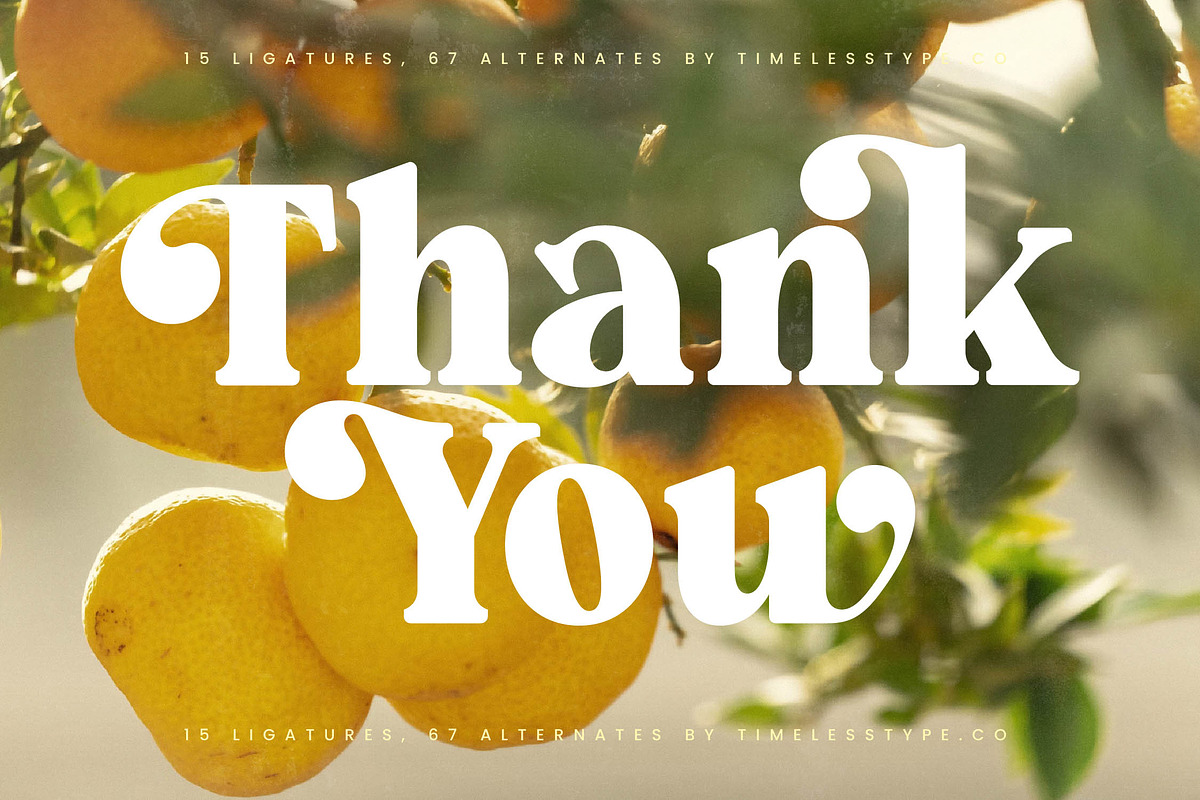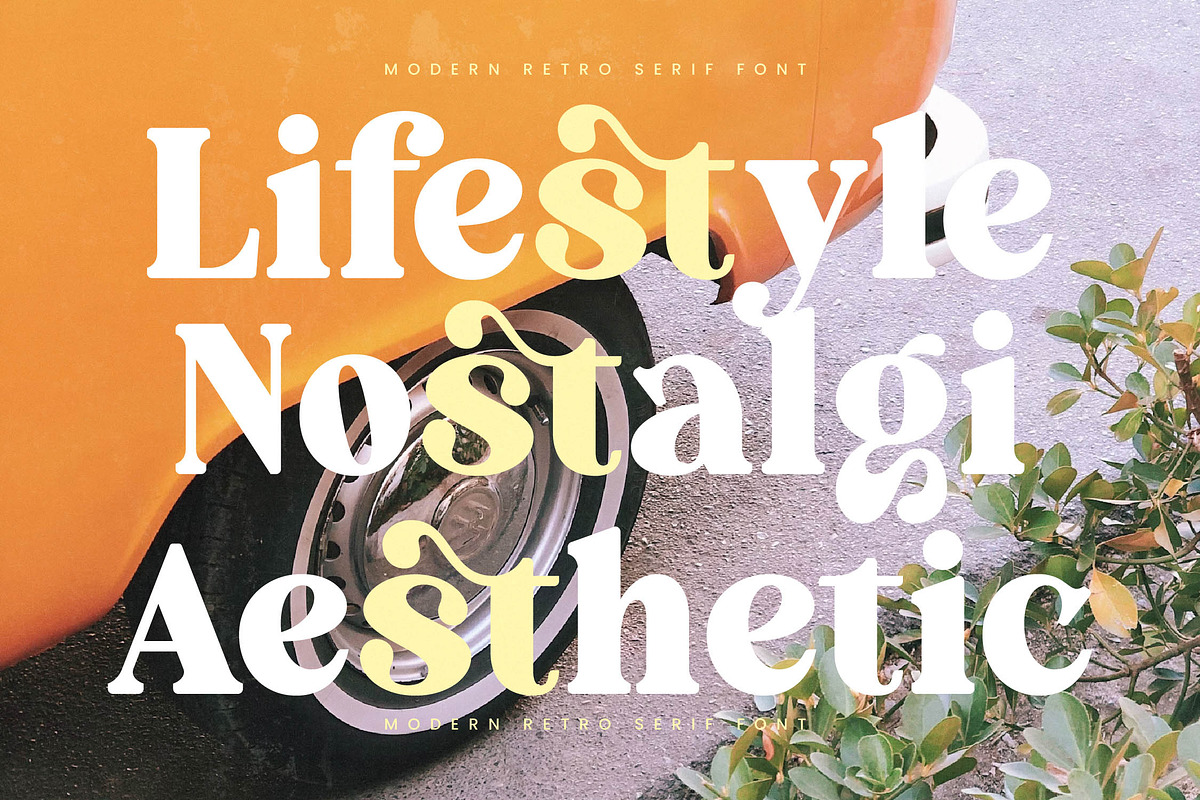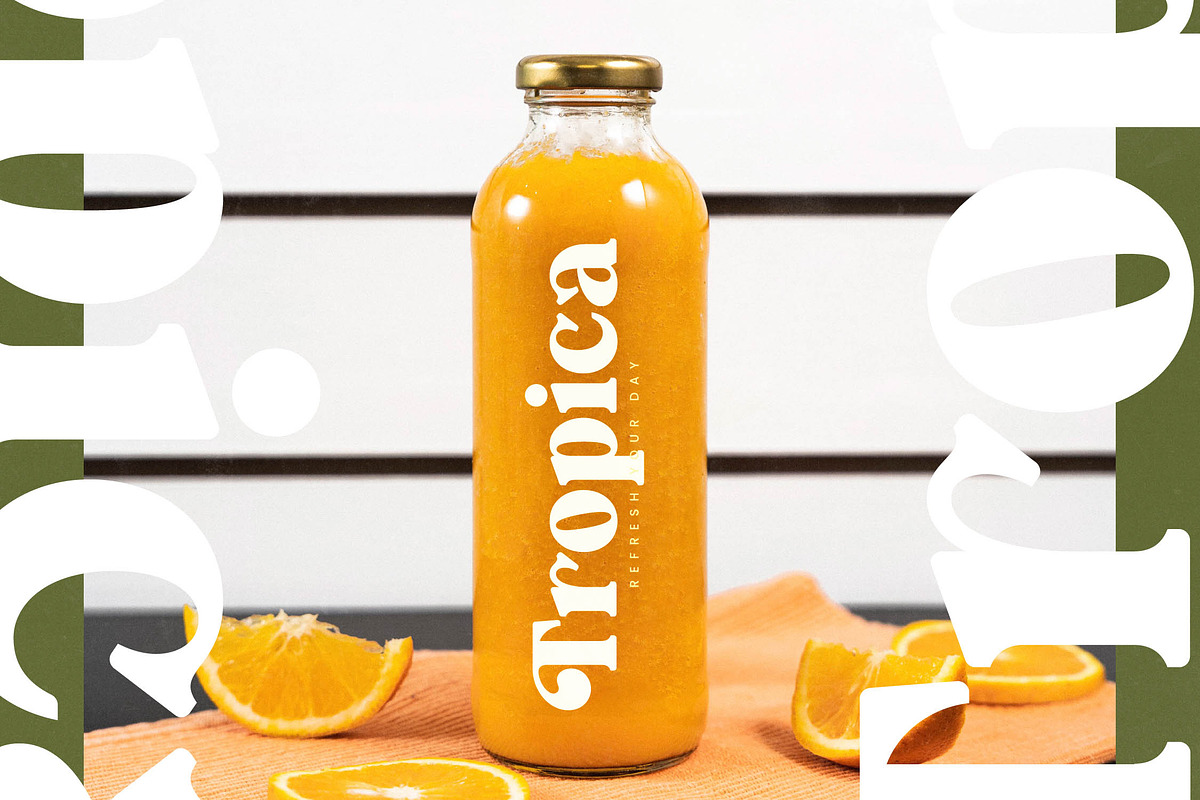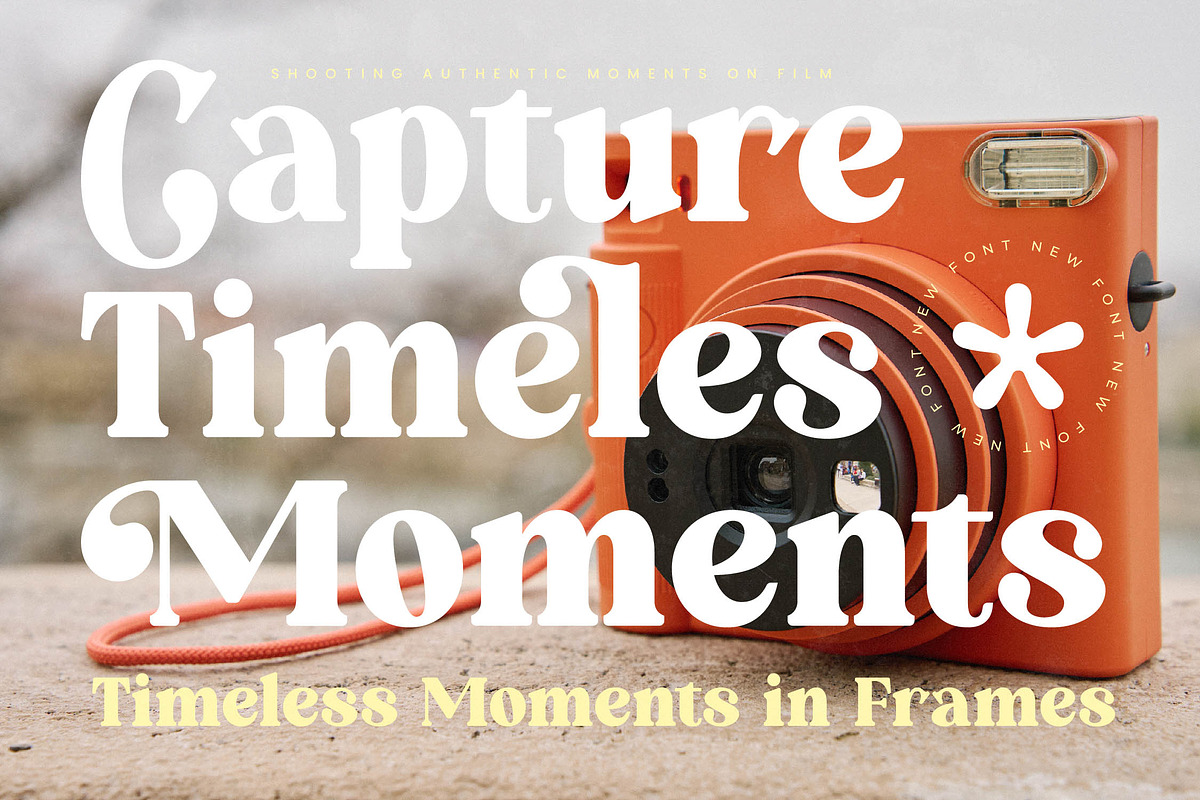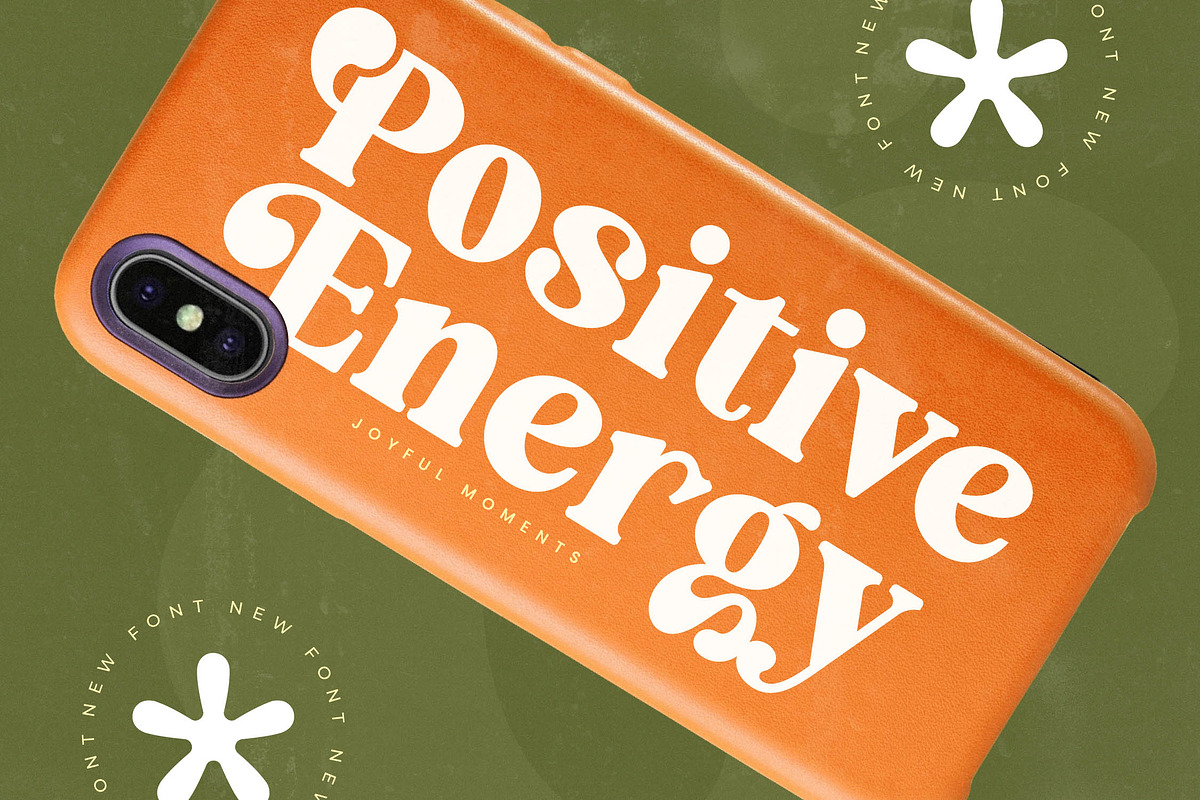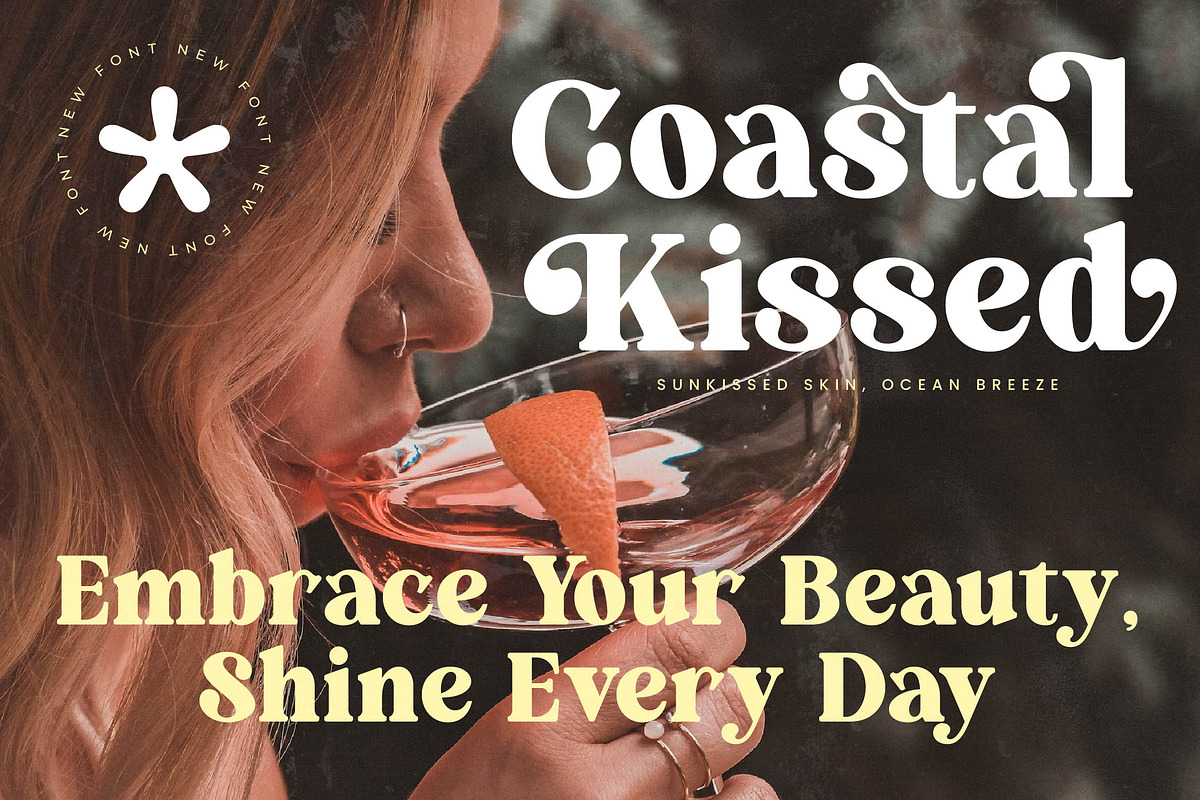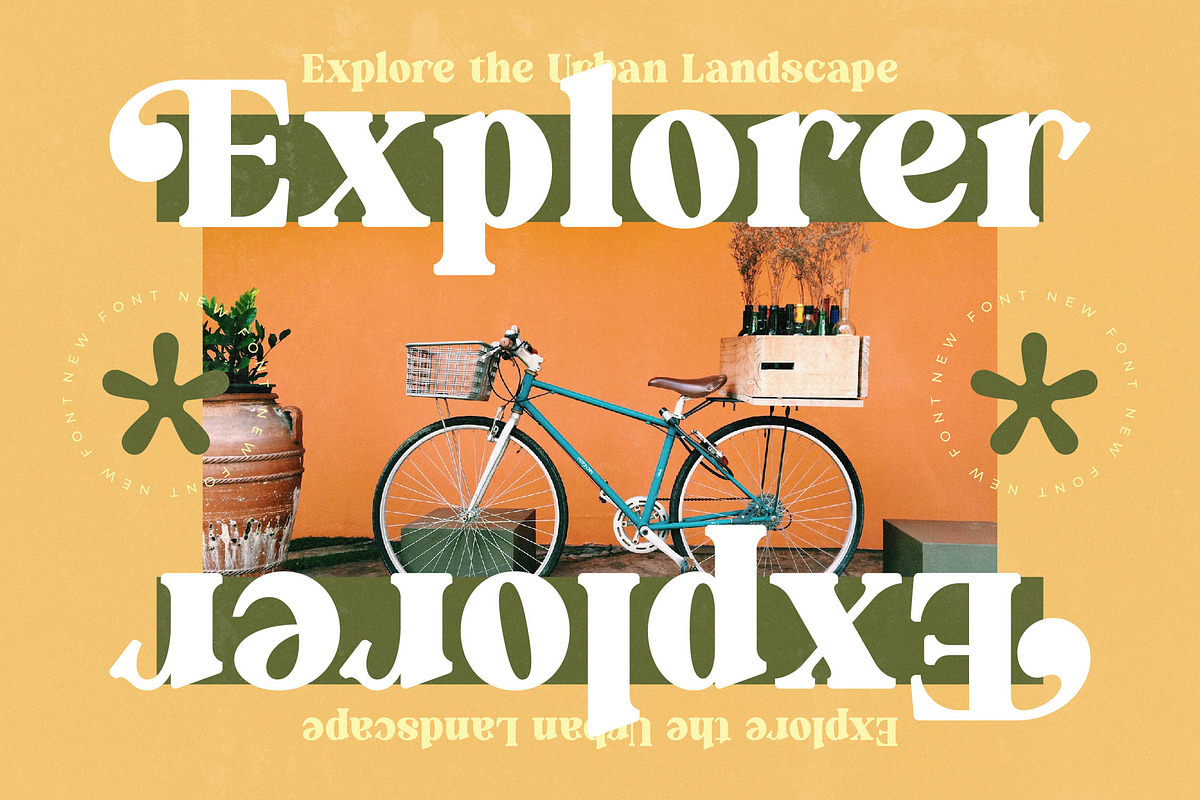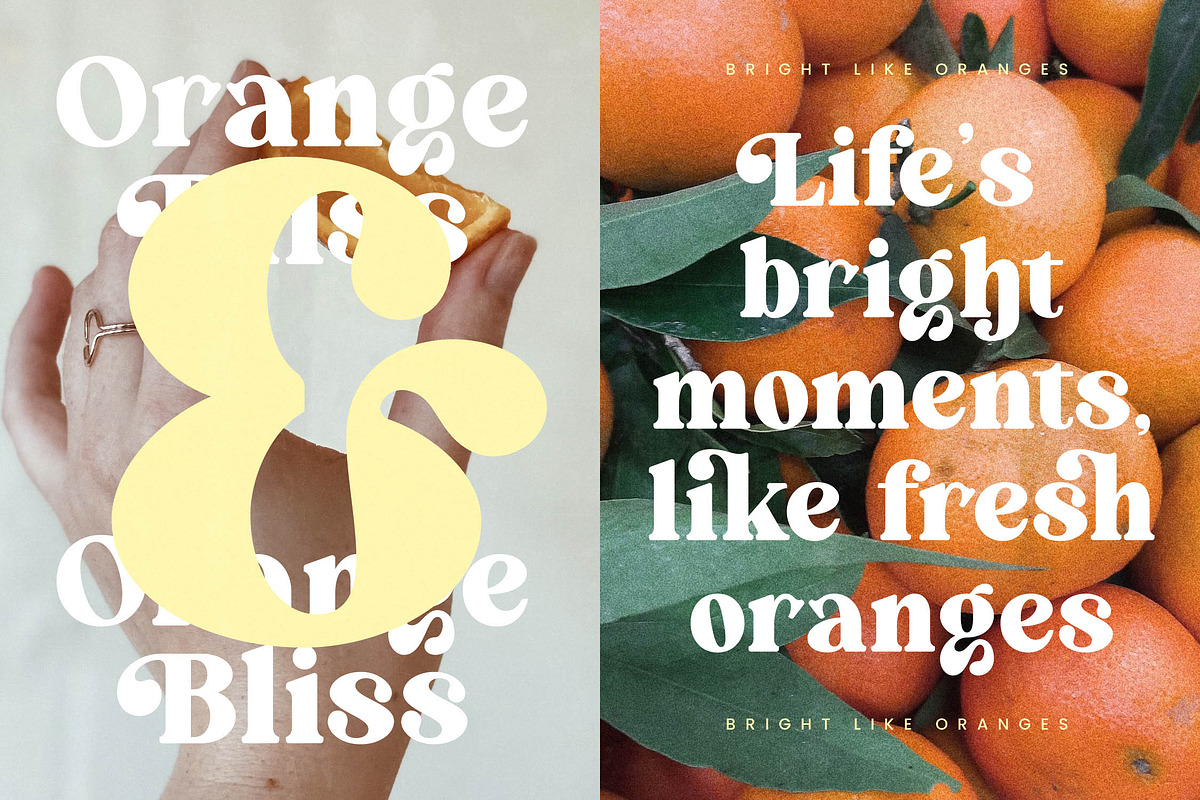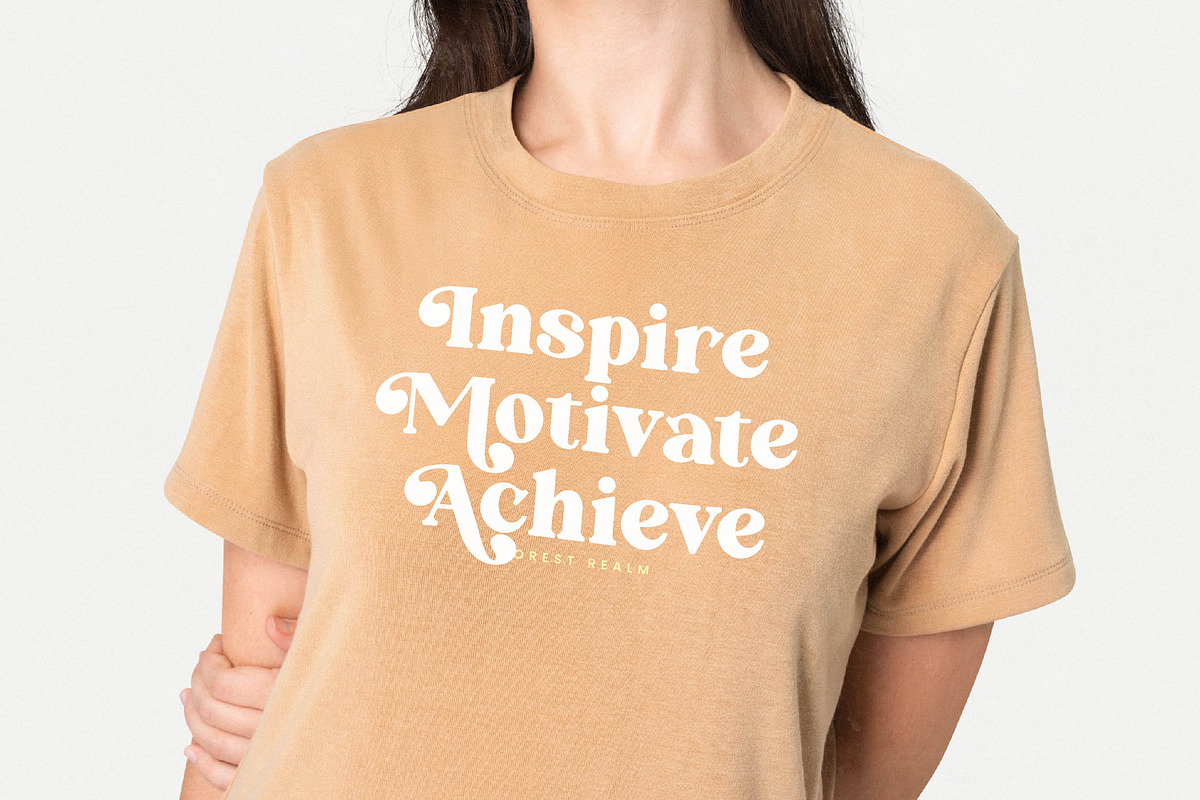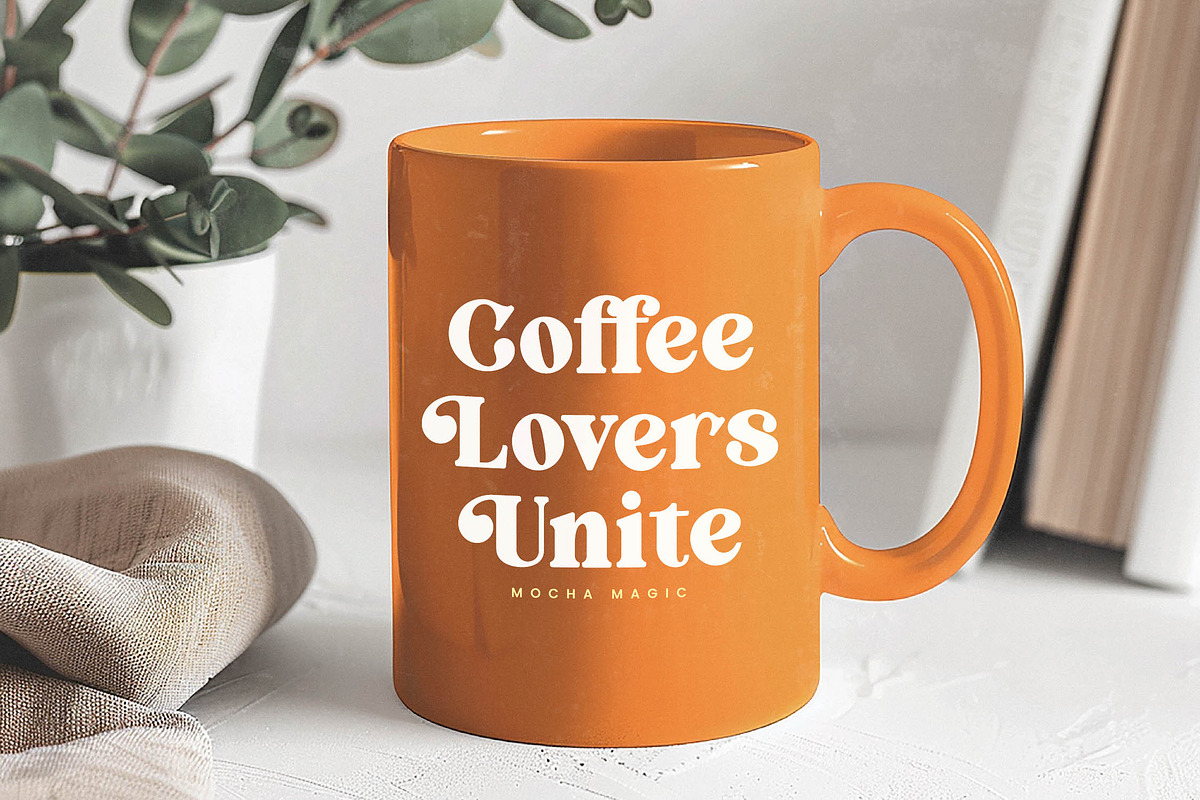
Forest Realm Modern Retro Serif
Forest Realm transports your designs into a lush, evergreen landscape where classic elegance meets a contemporary organic soul. It is an invitation to explore a world where every letter tells a story of natural beauty and refined craftsmanship.
Drawing inspiration from the deep, textured canopies of ancient woodlands and the sun-dappled glow of an orchard, this typeface captures a spirit of timeless growth. The flowing curves and sharp serifs evoke a sense of heritage blended with a whimsical, earthy charm that feels both grounded and ethereal.
This modern serif display is designed for maximum branding impact, offering a level of luxury typography that commands attention on any page. As a high-contrast serif, it functions as a definitive editorial font that balances bold weight with delicate, dancing curves to create a visual harmony that is impossible to ignore.
Aligning perfectly with the current modern serif trend, this typeface answers the industry demand for character-driven typography that breaks away from the mundane. It stands at the forefront of editorial display fonts, providing a unique aesthetic that satisfies the craving for retro-revivalism while remaining fresh and forward-thinking.
From high-end fashion spreads and delicate wedding stationery to bold logo design and artisan packaging, this font provides the versatility needed for comprehensive branding suites. Its unique silhouette makes it the perfect choice for editorial layouts that require a touch of personality and a heavy dose of sophistication.
Every character is a masterpiece, featuring an extensive library of ligatures and alternates that allow for custom typographic flourishes and unique wordmarks. With comprehensive multilingual support and a vast array of international characters and decorative swashes, you have all the tools necessary to communicate across borders with unparalleled style.
- Ligature 15 Alternate 67